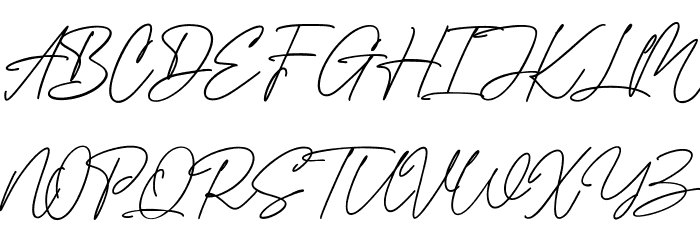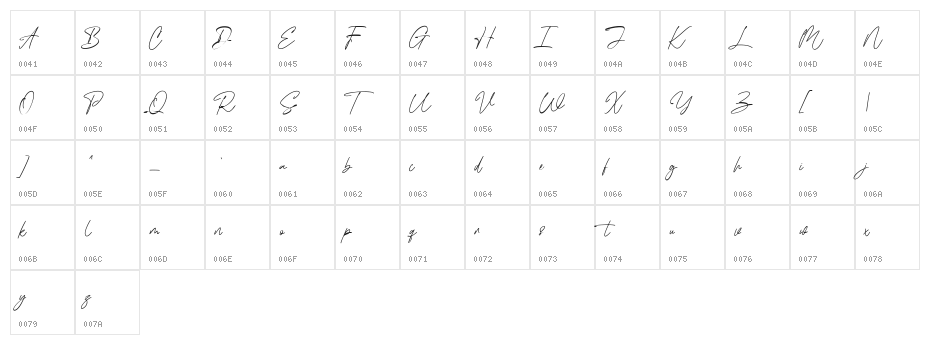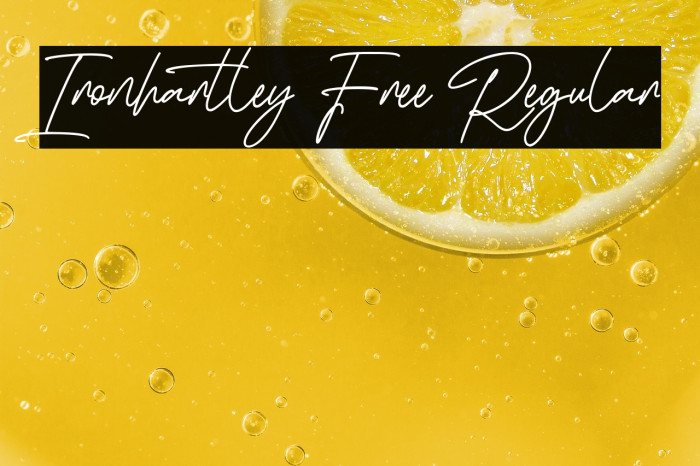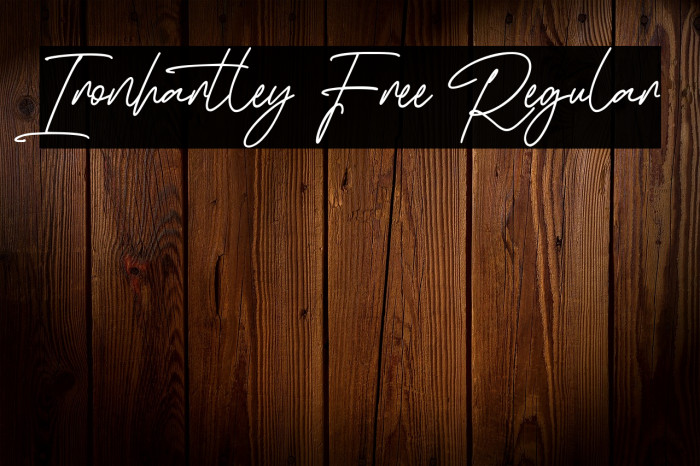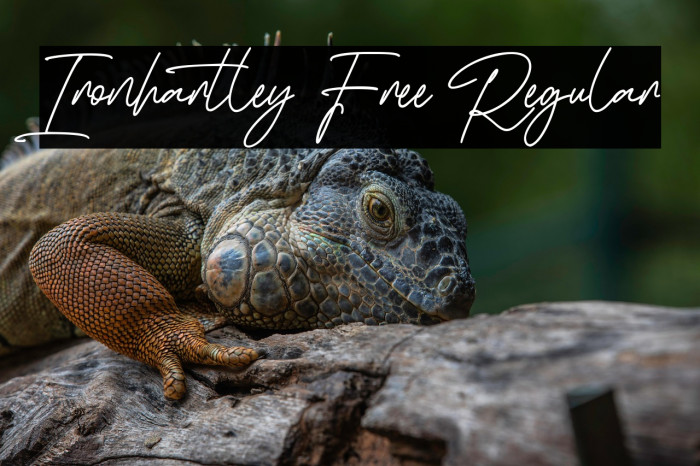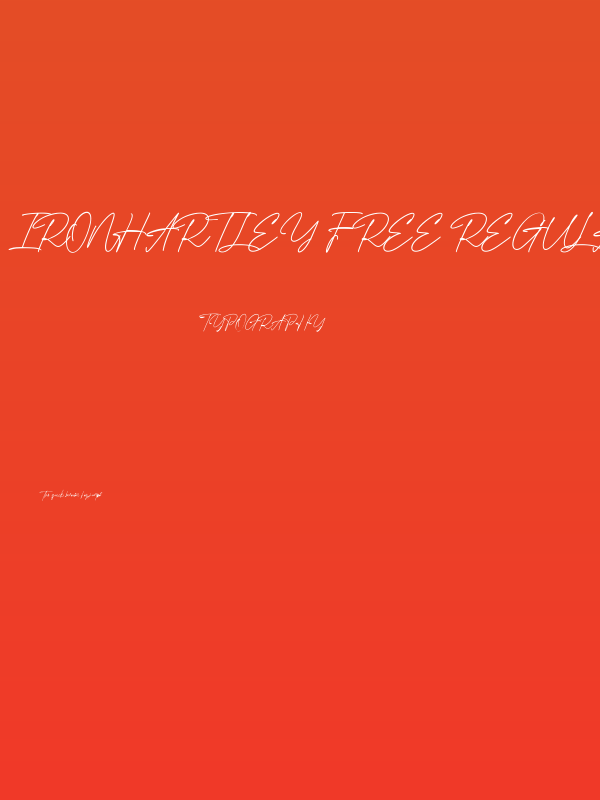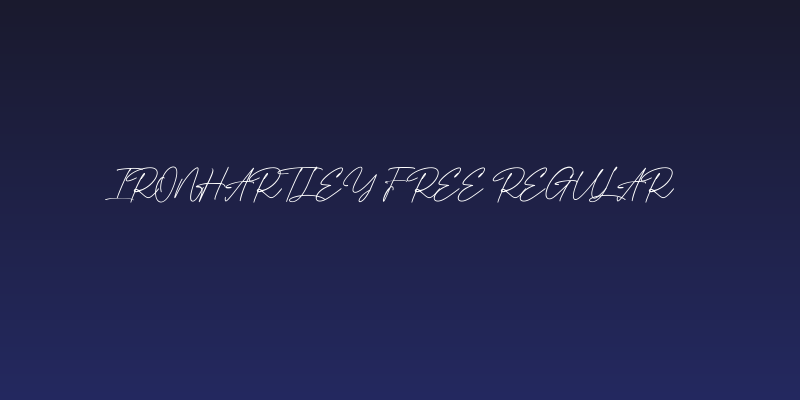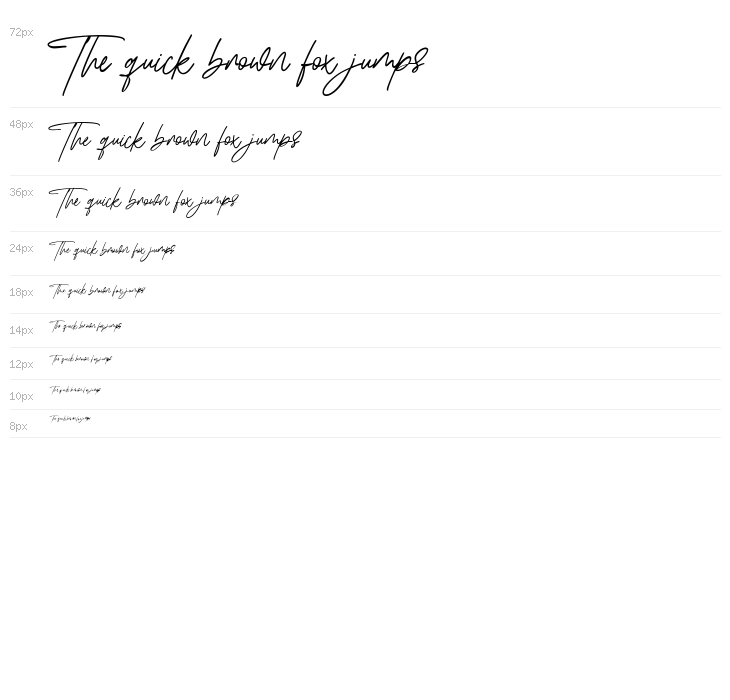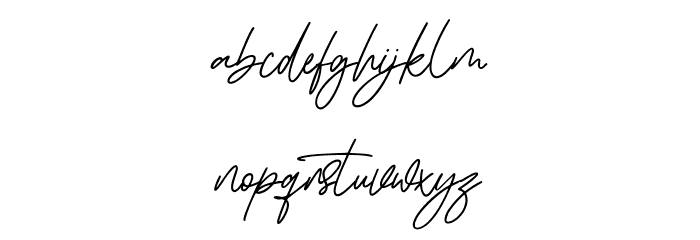
Ironhartley Free Regular Font
Ironhartley Free Regular Description
This font exhibits a flowing, cursive style with an elegant and sophisticated appearance. The letters are interconnected, creating a seamless and continuous script that mimics natural handwriting. The strokes are smooth and fluid, with a slight slant that adds to its graceful demeanor. The uppercase letters are bold and prominent, while the lowercase letters maintain a delicate and refined look. This font is perfect for adding a personal touch to any design, offering a sense of warmth and charm. Its overall aesthetic is both modern and timeless, making it suitable for a wide range of applications.
| Overall Style | Elegant, Modern |
| Proposed Projects | Ideal for wedding invitations, greeting cards, personal branding, and elegant logos. |